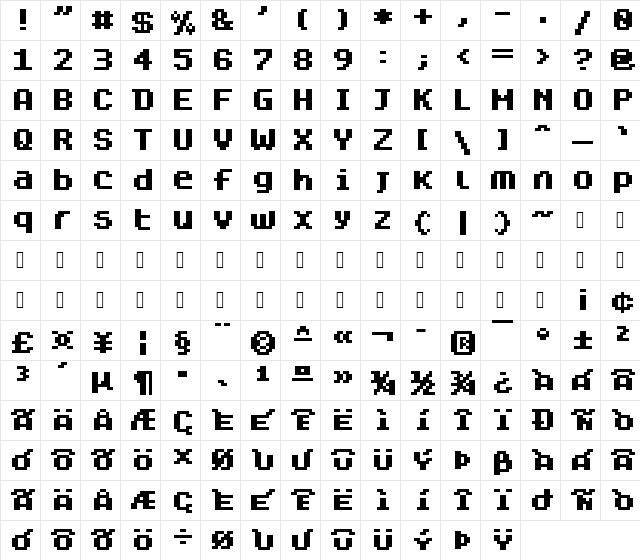
Dogica Pixel Bold
Design Context for Dogica Pixel Typeface
Dogica Pixel is rooted in pixel-grid construction, making it a natural fit for game UI, retro computing aesthetics, and digital nostalgia projects.
Well-suited to indie game interfaces, retro computing aesthetics, and pixel art-adjacent design work.
Pro Tip: Use Dogica Pixel at sizes that align with its pixel grid for the sharpest rendering — scaling to non-integer multiples can introduce unwanted blur.